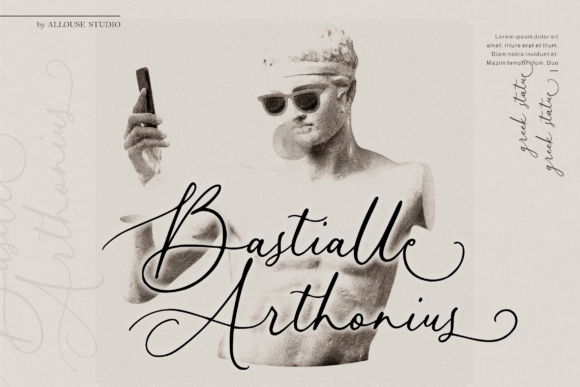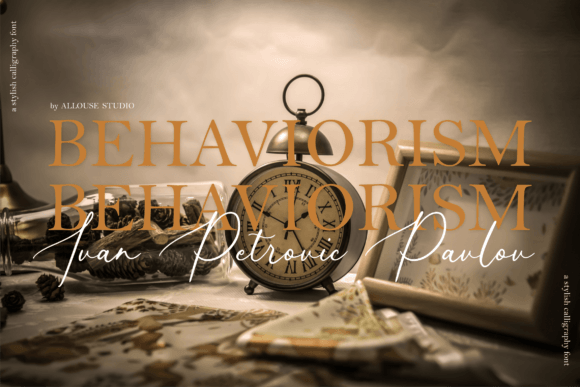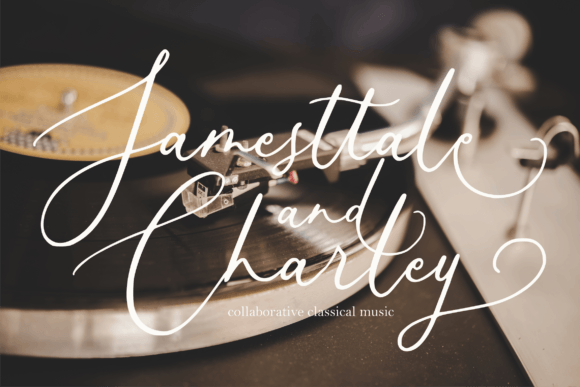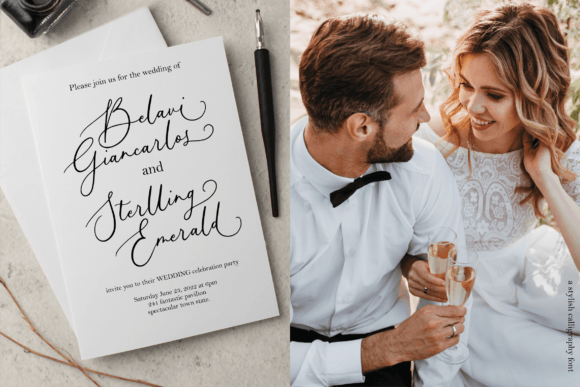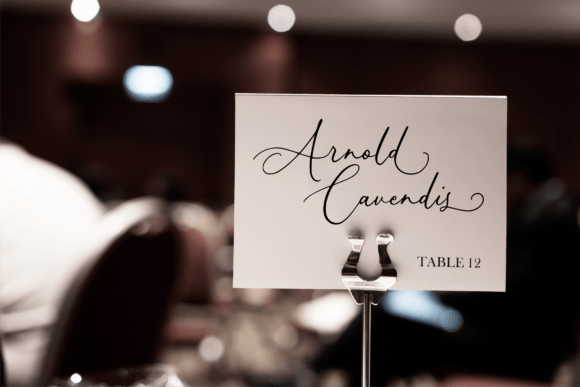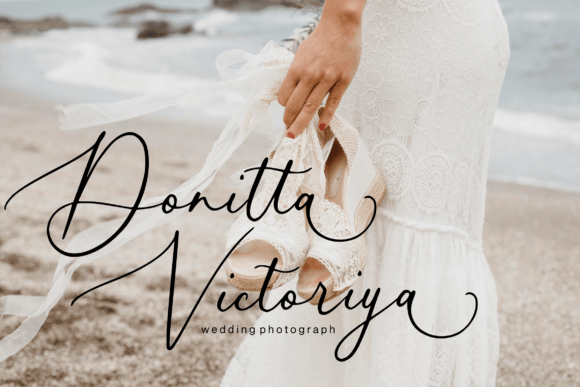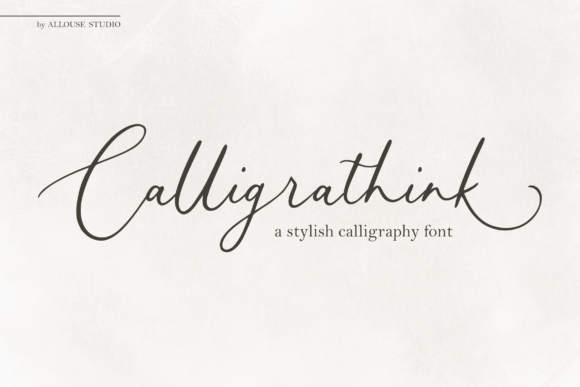
The Calligrathink Font: A Stylish Handwritten Delight for Creatives
I’ll never forget the time I was working on a wedding invitation project, and my client asked for a font that was both elegant and playful. I scoured the internet, tried countless fonts, but nothing seemed quite right. That was until I stumbled upon Calligrathink. This beautiful handwritten font has been a game-changer for my design projects, and I’m excited to share it with you.
Here’s what I love about Calligrathink:
• ✨ Elegant yet playful: Calligrathink strikes the perfect balance between sophistication and whimsy, making it perfect for a wide range of projects.
• ✅ Versatile: From product packaging to social media posts, this font adapts seamlessly to different contexts.
• 💫 Unique character set: The font comes with a delightful set of glyphs and stylistic alternates that add an extra layer of creativity to your designs.
And, like any font, it’s not without its quirks:
• 🤔 Limited use in body text: While Calligrathink is stunning in headlines and titles, it may not be the best choice for lengthy body text due to its cursive nature.
The Designer Inspiration Behind Calligrathink
Calligrathink was designed with the intention of creating a font that would inspire creatives to add a touch of elegance and whimsy to their projects. The designer, who wishes to remain anonymous, drew inspiration from traditional calligraphy and modern handwriting techniques. The result is a font that feels both classic and fresh.
Q: What type of projects is Calligrathink best suited for?
A: Calligrathink is perfect for product packaging, branding projects, magazines, social media posts, wedding invitations, and more.
Q: Does Calligrathink support OpenType features?
A: Yes, Calligrathink comes with a range of OpenType features, including glyphs and stylistic alternates.
Q: Is Calligrathink suitable for body text?
A: While Calligrathink is stunning in headlines and titles, it may not be the best choice for lengthy body text due to its cursive nature.